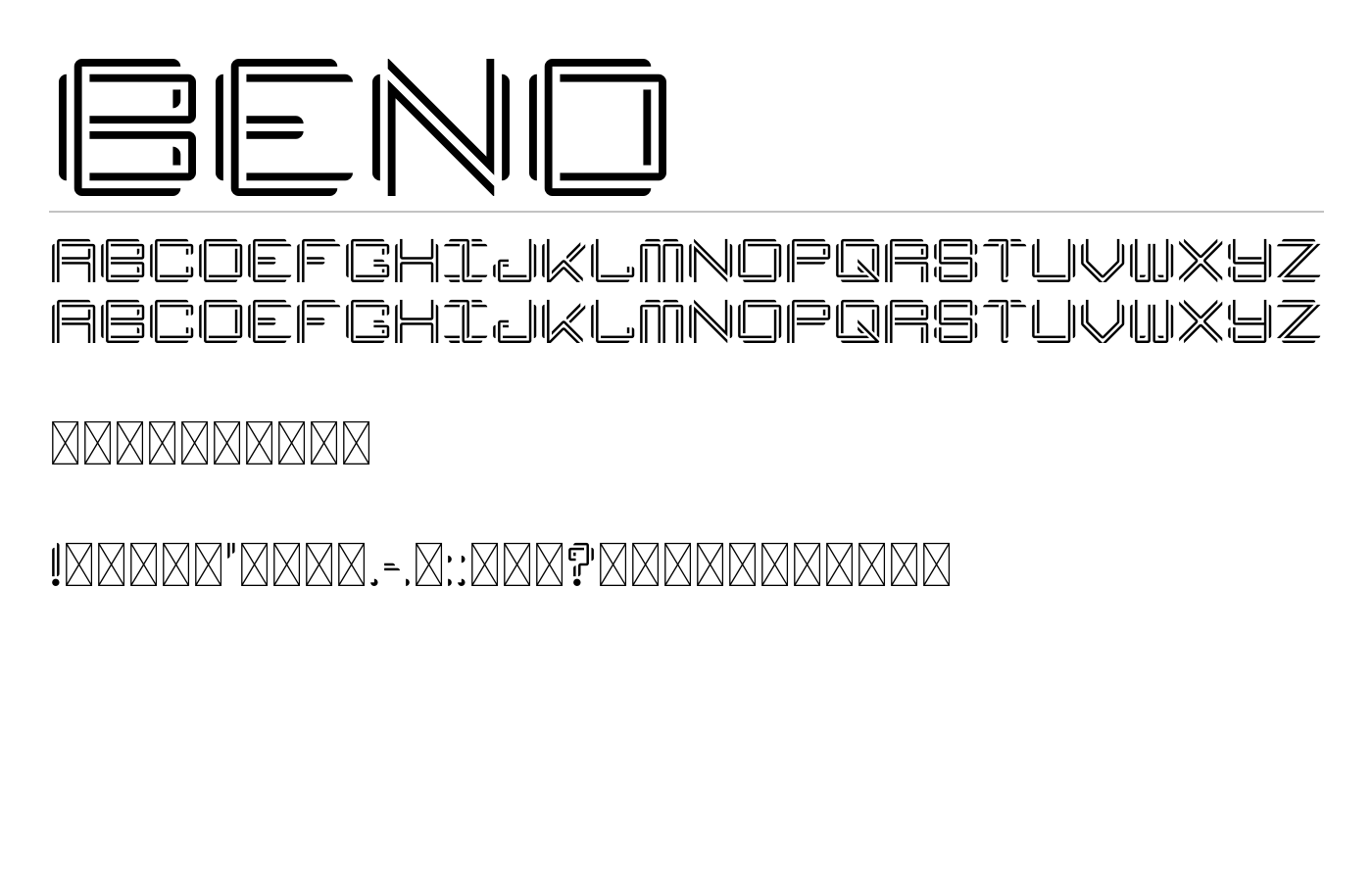
Bend Font is a modern, geometric sans serif with a futuristic and architectural feel, characterized by its clean lines and unique overlapping stroke design that creates a sense of depth and movement. Its narrow width and medium weight make it ideal for striking headlines, logos, and branding where a sleek, innovative look is desired. This font works well in tech, design, and modern lifestyle contexts, adding a contemporary edge with its creative, structured style.
Bend Font
About Bend Font
| Font family | Bend Font |
| Designer | Juan Miguel Castillo |